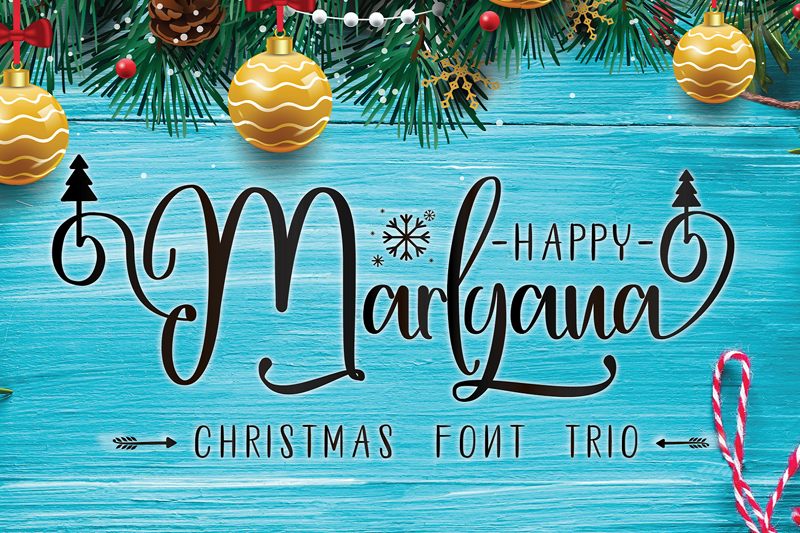
Font name: | Marlyana |
Author: | Subotype |
'Happy Marlyana Font Trio" a new fresh handmade calligraphy font come with 3 style variation that really sweet together. Very suitable for greeting cards, branding materials, business cards, quotes, posters, and more!TRY IT FIRST buy it in thehungryjpeg just for $1 for now limited time only BEFORE price rise up to normal $18 HERE THE LINK : https://thehungryjpeg.com/product/3504910-happy-marlyana-font-trio/ |